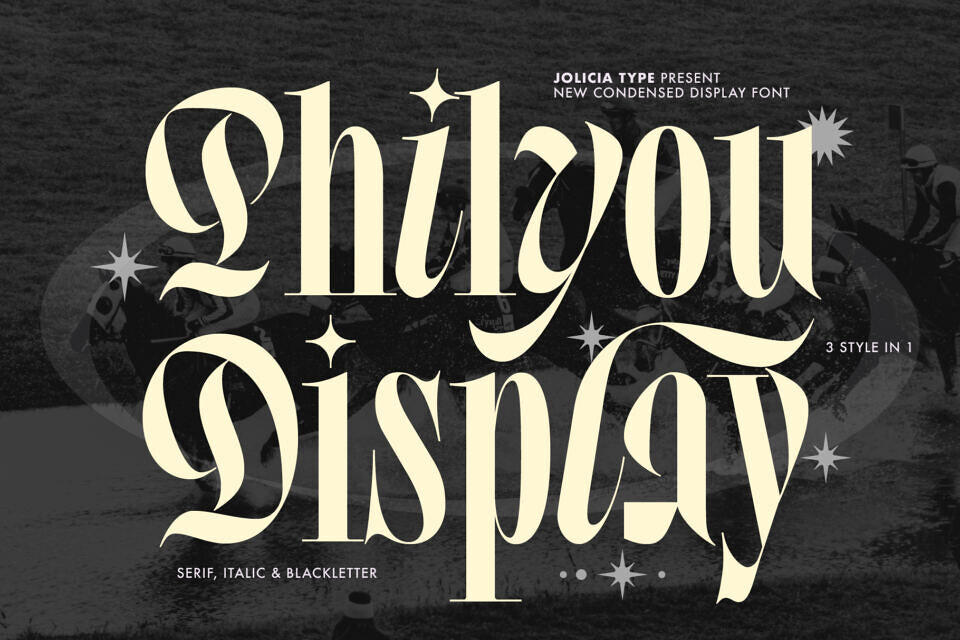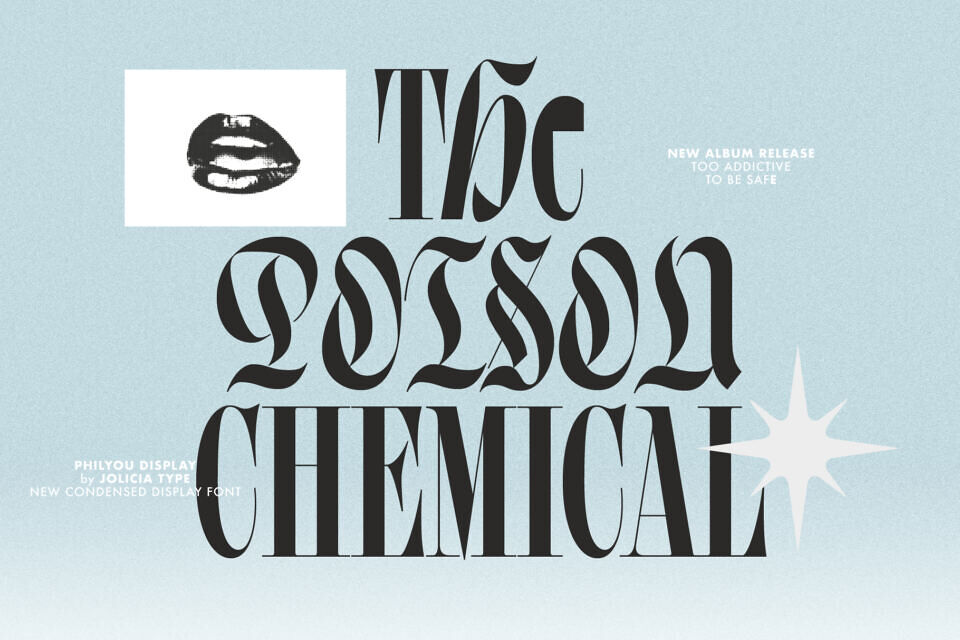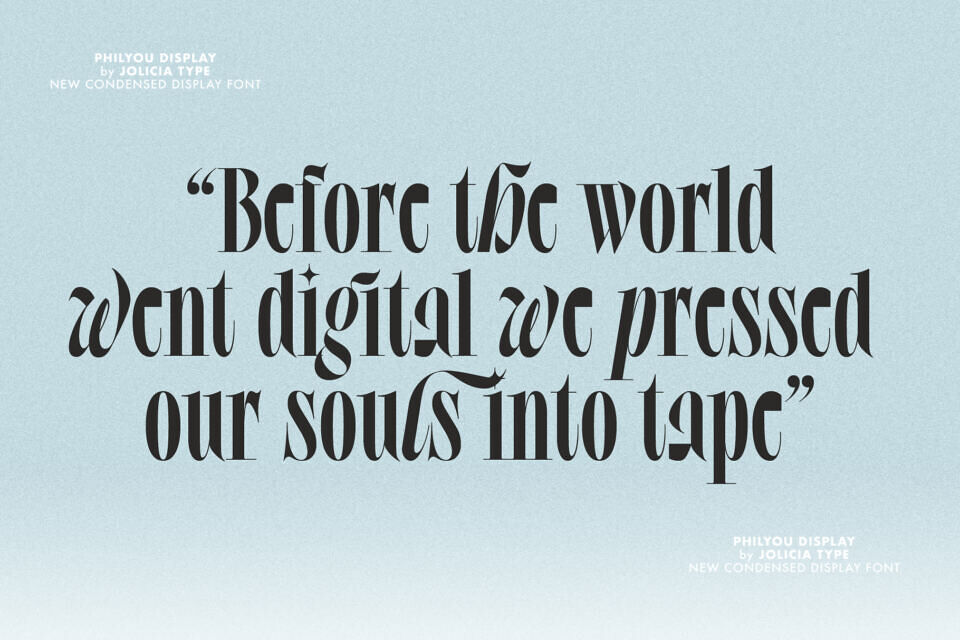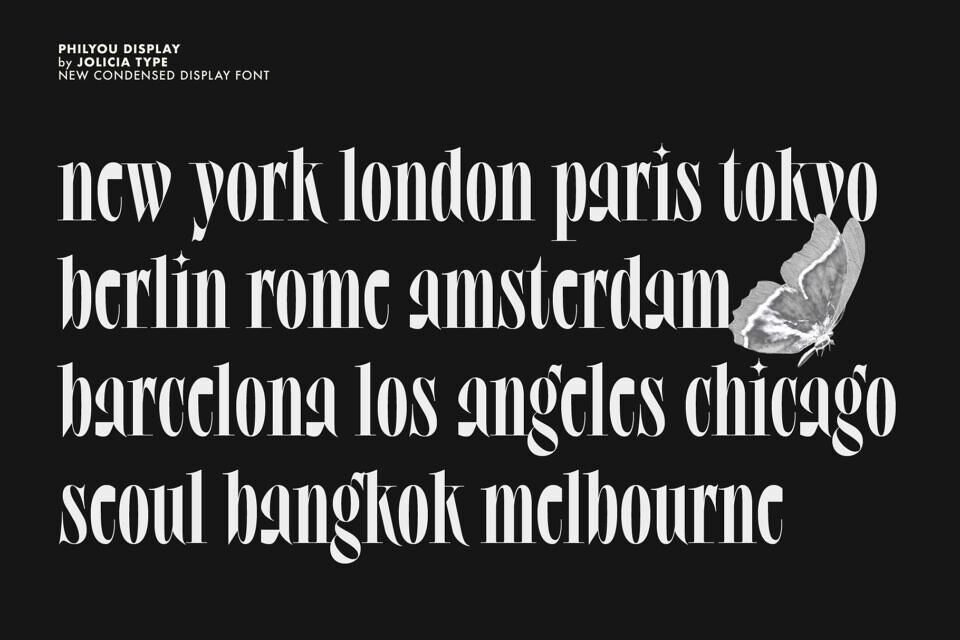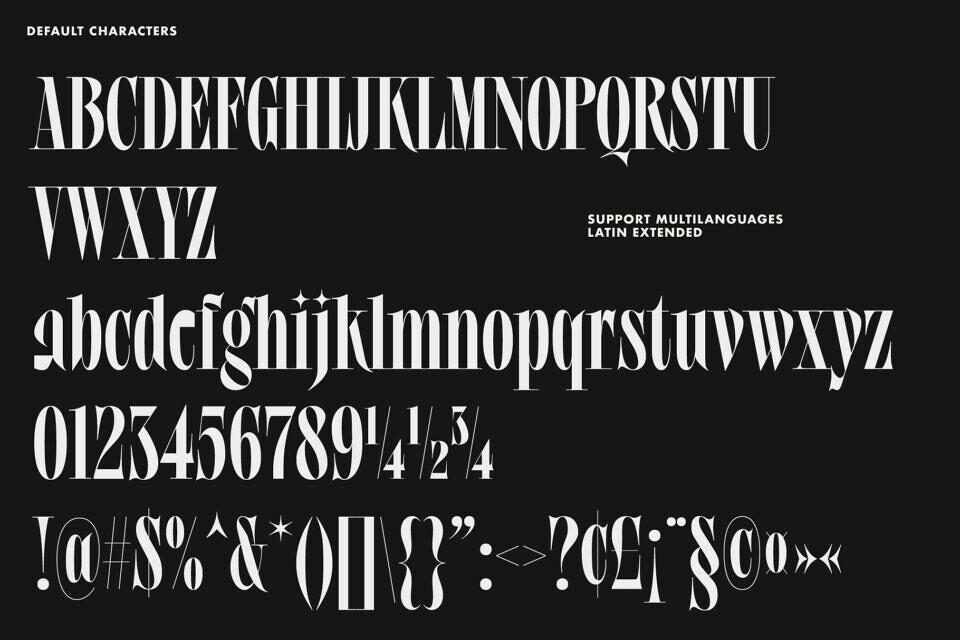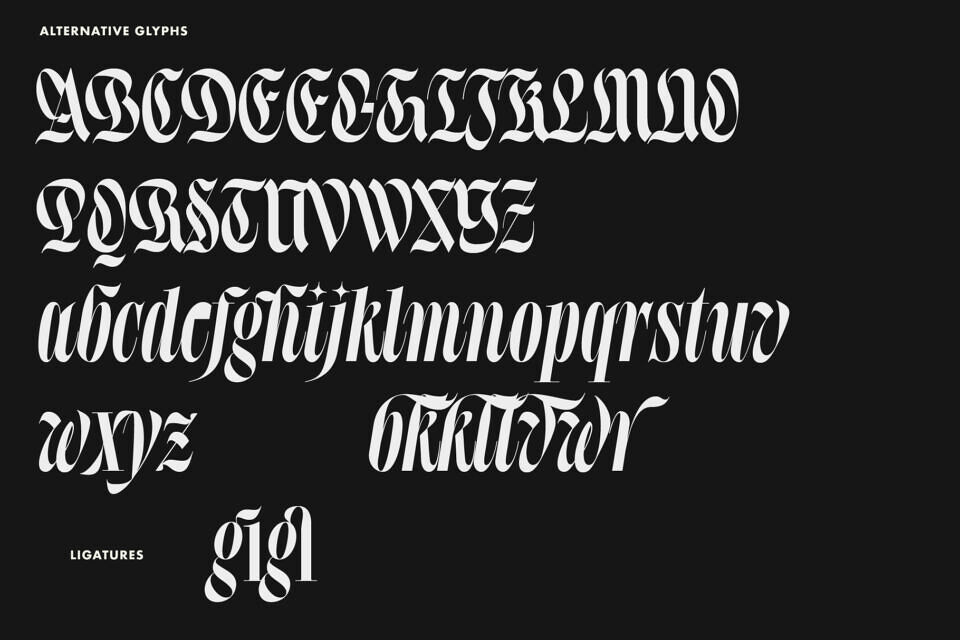
3 distinct styles in 1 typeface. Philyou Display is a condensed serif display typeface that brings together classic Didot-style elegance, Blackletter-inspired uppercase alternates, and italic lowercase alternates into a single, expressive font family.
The default style is rooted in Didot aesthetics, featuring high stroke contrast, and tall condensed proportions. This foundation delivers a refined, luxurious, and editorial feel perfect for premium branding, headlines, fashion layouts, and display typography.
As a bold visual contrast, Blackletter-style uppercase alternates introduce a dramatic, historical character, adding depth and personality while maintaining structural harmony with the condensed serif base.